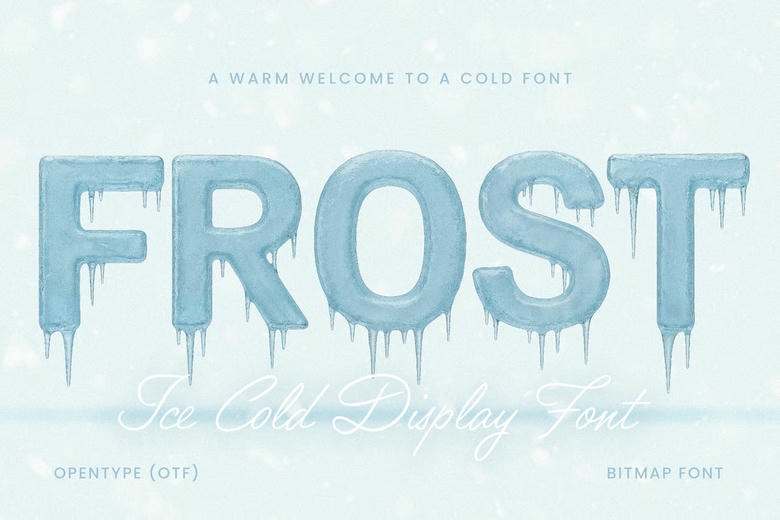
Frost Font
Frost is an ice-themed display font that is used to add a winter magic to your creative works. The letters are carved in ice texture and natural icicles. What is achieved is the effect of bold and chilling ideal to atmospheric headlines, advertisements, and social media.
Frost Display Font